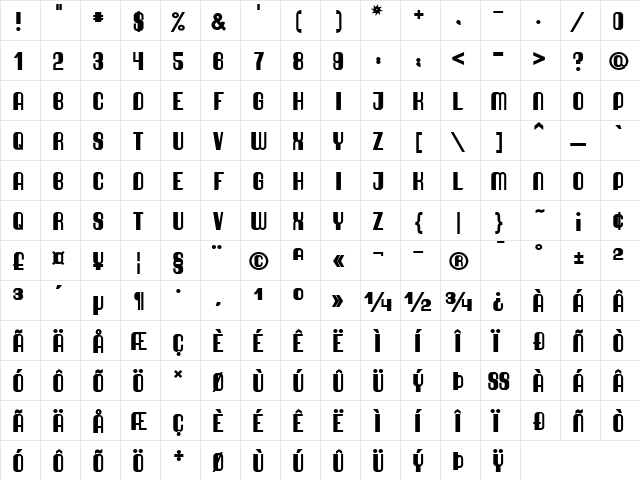
Quimbie UH Regular
| Foundry | CAT - Ing. Peter Wiegel. Wolgast |
| Designer | Peter Wiegel |
Design Context for Quimbie UH Typeface
Quimbie UH is a composed and adaptable typeface that performs quietly and consistently across a wide range of design contexts.